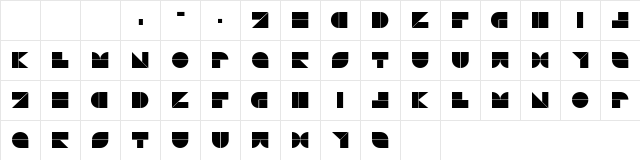
Complete Drebiek Expanded Black glyph index. Displaying only characters natively supported by Drebiek Expanded Black font.
Drebiek is a composed and adaptable typeface that performs quietly and consistently across a wide range of design contexts.
Who designed the Drebiek Expanded Black font?